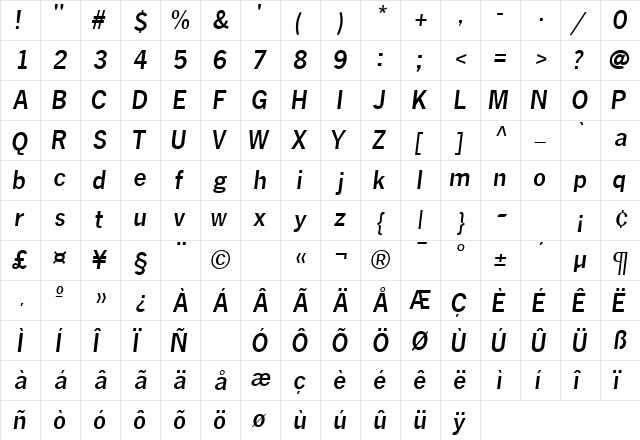
MacroBlackSSK Italic Font Preview
MacroBlackSSK Italic
MacroBlackSSK Italic Font Details
Design Context for MacroBlackSSK Typeface
MacroBlackSSK offers clean, dependable letterforms without strong stylistic allegiance, making it a practical choice for designers who need flexibility. The dynamic lean of this cut emphasises speed and emphasis in any layout.
Pro Tip: Use MacroBlackSSK for emphasis, pull quotes, and subheadings where its slanted energy can add rhythm to the layout.